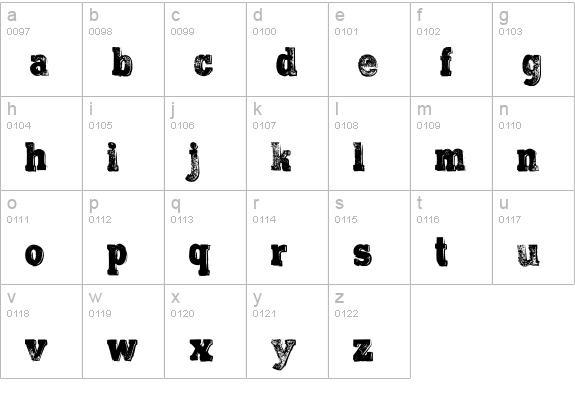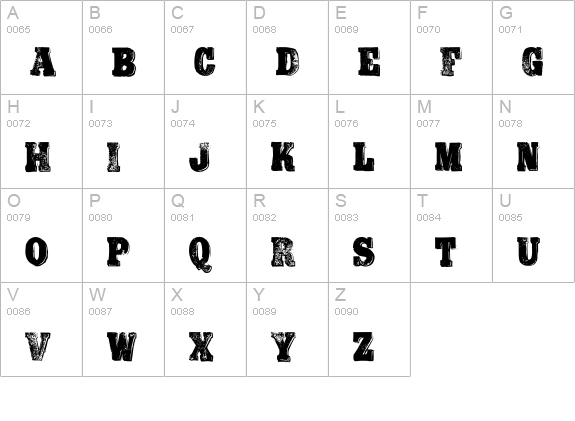
Bold Pressing H4 is a strong, high-contrast variant in the Bold typeface family \xE2\x80\x94 well suited to headlines, attention-grabbing titles, and strong calls-to-action.
Bold Pressing H4 is a striking and dynamic font that demands attention with its bold and powerful design. Perfect for headlines, posters, and other eye-catching designs, this font exudes confidence and modernity. The thick strokes and sharp angles give it a strong and impactful presence on the page. What sets Bold Pressing H4 apart is not just its boldness, but also its versatility. Despite its strong character, it remains highly readable and can be used in a variety of design projects. Whether you're looking to make a statement or simply want to add a touch of boldness to your text, Bold Pressing H4 is the perfect choice. And the best part? Bold Pressing H4 is completely free to download at FontsMarket.com. This means you can easily add this powerful font to your collection without any cost. Don't miss out on the opportunity to enhance your designs with the striking presence of Bold Pressing H4. Download it today and make your text stand out like never before.